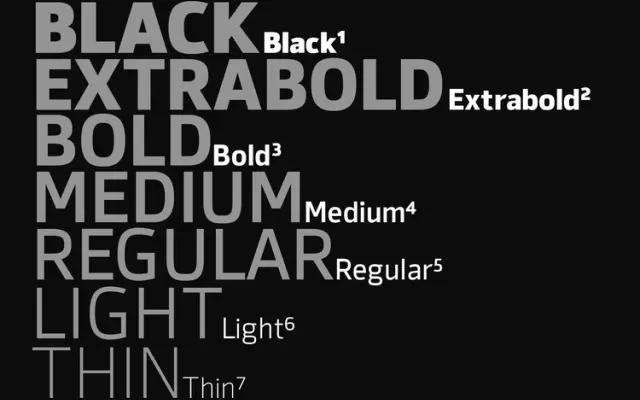
A seven-weight sans that blends humanist warmth with geometric structure, designed for digital applications, UI and film titling.
Syke sits between humanist and geometric traditions, using narrowly rounded letterforms with subtle square detailing to produce a typeface that works cleanly at screen sizes and in motion contexts. Each of the seven weights carries true italics, and the family is built out with over 570 characters per style, five numeral variants, ligatures and manually edited kerning. A companion monospaced family, Syke Mono, extends the system for code or tabular use.
The foundry describes Syke as combining humanist and geometric concepts, with narrowly rounded letter shapes and subtle square detailing — placing it between humanist and geometric sans categories.